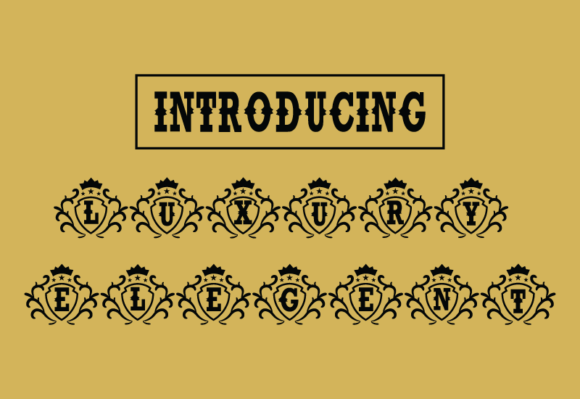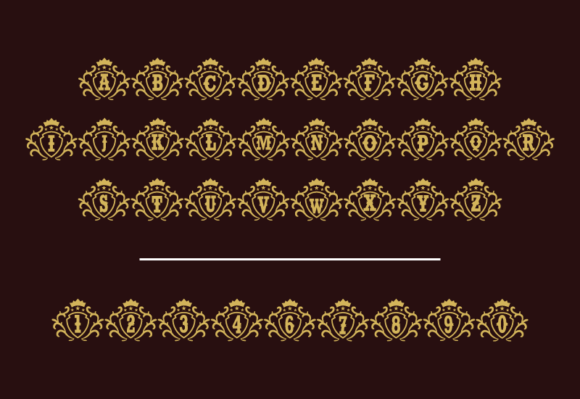
Introduction to Luxury Elegent Font
Have you ever been working on a creative project and you just can’t seem to find the right font to elevate it to the next level? I know I have. There’s nothing quite like the feeling of stumbling upon a high-quality design resource that makes all the difference in the world. For me, that moment came when I discovered the Luxury Elegent Font.
As soon as I laid eyes on its elegant and sophisticated design, I knew it was something special. With its transparent background and beautiful curves, this font is the perfect addition to any design library. Whether you’re working on a wedding invitation, a luxury brand logo, or a high-end marketing campaign, the Luxury Elegent Font is sure to impress.
Key Features of Luxury Elegent Font
- High-quality, elegant typography suitable for creative projects, offering a touch of sophistication and refinement.
- Features a transparent background, allowing for seamless integration into designs with complex backgrounds or textures.
- Unique characteristics include subtle flair and intricate details, adding a sense of luxury and sophistication to any design.
- Designed to be versatile, suitable for a wide range of creative projects, from branding and marketing materials to editorial and publishing content.
Honest Review: Luxury Elegent Font
I recently had the opportunity to work with the Luxury Elegent Font and I must say it’s been a game-changer for my creative projects. The high-quality design resource has elevated my work to a whole new level.
Here are some of the things that work well with this font:
- ✨ Beautiful, elegant design that adds sophistication to any project
- ✨ Highly customizable, allowing for a wide range of creative applications
- ⚠️ Limited number of font styles available for free download
- ⚠️ Some users may find the font too ornate or distracting
Overall, I’m extremely satisfied with the Luxury Elegent Font and would highly recommend it to anyone looking for a high-quality design resource. With a transparent background and a free download option, it’s definitely worth checking out.
Tips for Getting the Most Out of Luxury Elegent Font
For the best results, use Luxury Elegent Font on a transparent background to create a seamless and elegant design. You can also pair it with other high-quality design resources to create a unique and sophisticated look.
Common Use Cases for Luxury Elegent Font
Luxury Elegent Font is perfect for a variety of creative projects, including:
Business cards and marketing materials
Branding and logo design
And more!